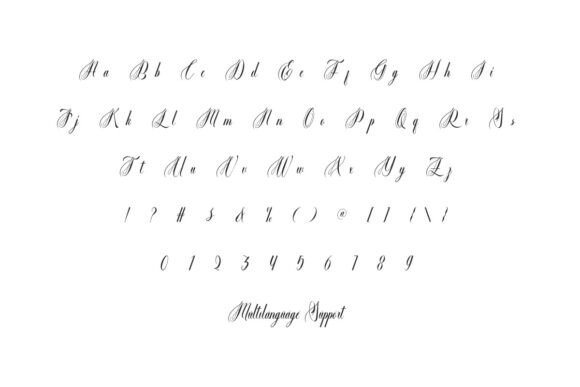
Megantari Font: Elevate Your Design with Luxurious Calligraphy
In the world of typography, few fonts manage to convey the essence of luxury and elegance as effectively as the Megantari Font. This beautiful, flawless calligraphy script font is meticulously crafted to provide a neat and sophisticated look, making it an ideal choice for a wide range of design applications. From brand logos and brochures to business cards and website designs, Megantari Font is the perfect tool to elevate your creative projects and leave a lasting impression.
Key Features of Megantari Font
- Luxurious Calligraphy Style: Megantari Font boasts a luxurious calligraphy style that adds a touch of sophistication and elegance to any design.
- Flawless Typography: The font is carefully crafted to provide a neat and flawless look, ensuring that your designs look professional and polished.
- Versatile: Megantari Font is suitable for a wide range of design applications, including brand logos, brochures, business cards, and more.
- Easy to Read: Despite its ornate style, Megantari Font remains easy to read, making it perfect for body text and headlines.
Design Applications for Megantari Font
Megantari Font is an incredibly versatile font that can be used in a variety of design applications. Here are some of the most popular uses for this beautiful font:
- Brand Logo: Create a luxurious and memorable brand logo that stands out from the competition.
- Brochure Design: Use Megantari Font to create eye-catching brochures that showcase your products or services.
- Business Card Design: Make a lasting impression with beautifully designed business cards that feature Megantari Font.
- Cover Design: Create stunning cover designs for books, magazines, or any other publication.
- Invitation Design: Design elegant and sophisticated invitations for weddings, parties, or corporate events.
- Label Design: Use Megantari Font to create labels that add a touch of luxury to your products.
- Poster Design: Create striking posters that grab attention and leave a lasting impression.
- Packaging Design: Elevate your packaging design with Megantari Font and make your products stand out on store shelves.
- Quote Design: Design inspiring quotes that feature Megantari Font and add a touch of elegance to any room.
- Screen Print Design: Create stunning screen prints that feature Megantari Font and make a lasting impression.
- Stationery Design: Design beautiful stationery that features Megantari Font and adds a touch of sophistication to your correspondence.
- Sticker Design: Use Megantari Font to create stickers that are both fun and elegant.
- Title Design: Create stunning title designs for movies, TV shows, or any other video content.
- Watermark Design: Add a touch of luxury to your photos or documents with Megantari Font watermarks.
- Website Design: Use Megantari Font to create a luxurious and elegant website that leaves a lasting impression on your visitors.
Typography Tips for Using Megantari Font
To get the most out of Megantari Font, here are some typography tips to keep in mind:
- Use it Sparingly: While Megantari Font is beautiful, it’s best to use it sparingly to avoid overwhelming your design.
- Pair it with a Sans-Serif Font: Pair Megantari Font with a sans-serif font to create a beautiful contrast and add visual interest to your design.
- Experiment with Font Sizes: Experiment with different font sizes to create a hierarchy of information and add depth to your design.
- Pay Attention to Kerning: Pay attention to kerning to ensure that your text looks professional and polished.
In conclusion, Megantari Font is a beautiful and luxurious calligraphy script font that can elevate any design. With its flawless typography and versatile design applications, it’s the perfect choice for designers looking to add a touch of sophistication and elegance to their creative projects. By following the typography tips outlined above, you can get the most out of Megantari Font and create stunning designs that leave a lasting impression.